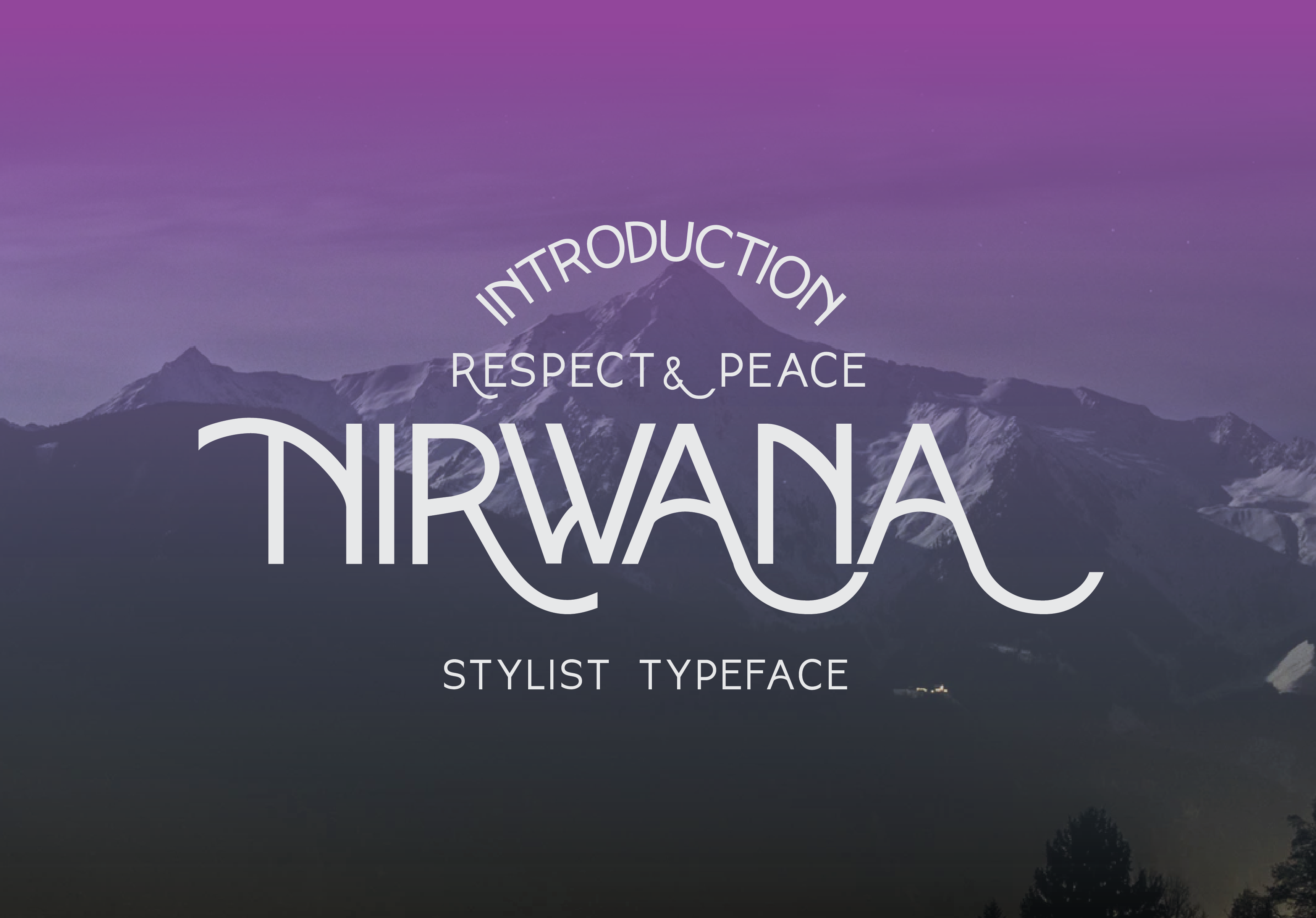
Nirwana Font: Modern Decorative Font for Unique Logo Design
About the Nirwana Font
Presenting Nirwana Font, a unique and stylish typeface that will make your work stand out. The basic concept of making Nirwana was to creative a font that alternates between sans serif design with a decorative feel; this is a robust and modern all caps font that is ideal for a wide range of uses. With bonus ornaments, Nirwana is a great way to give your designs a beautifully cohesive look.
Nirwana’s bold, decorative style makes it perfect for headlines, logos, and short impactful statements in branding projects or posters. Its all-caps nature and strong forms ensure excellent readability at larger sizes. However, it’s less suitable for body text or UI elements where extended reading is required; the decorative elements might hinder legibility in smaller sizes.
To complement its modern, robust feel, pair Nirwana with a clean sans-serif like Montserrat for body copy, or a geometric sans-serif such as Futura for a more structured design. For a touch of elegance, a subtle serif like Garamond could create a refined contrast. Avoid pairing it with highly decorative scripts, as this could overcrowd the design.
Nirwana exudes a confident, contemporary energy. Brands seeking to project strength, sophistication, or a modern aesthetic will find it highly effective. Think high-end fashion, luxury goods, or technology companies aiming for a striking visual identity.